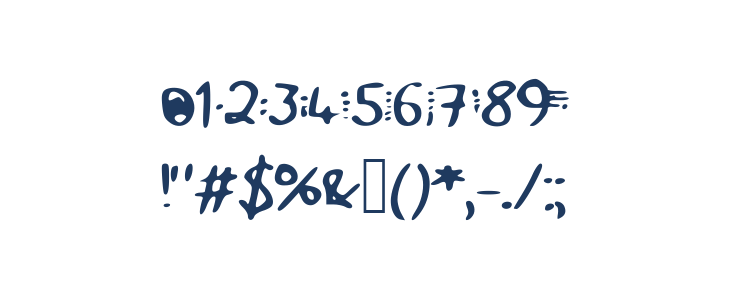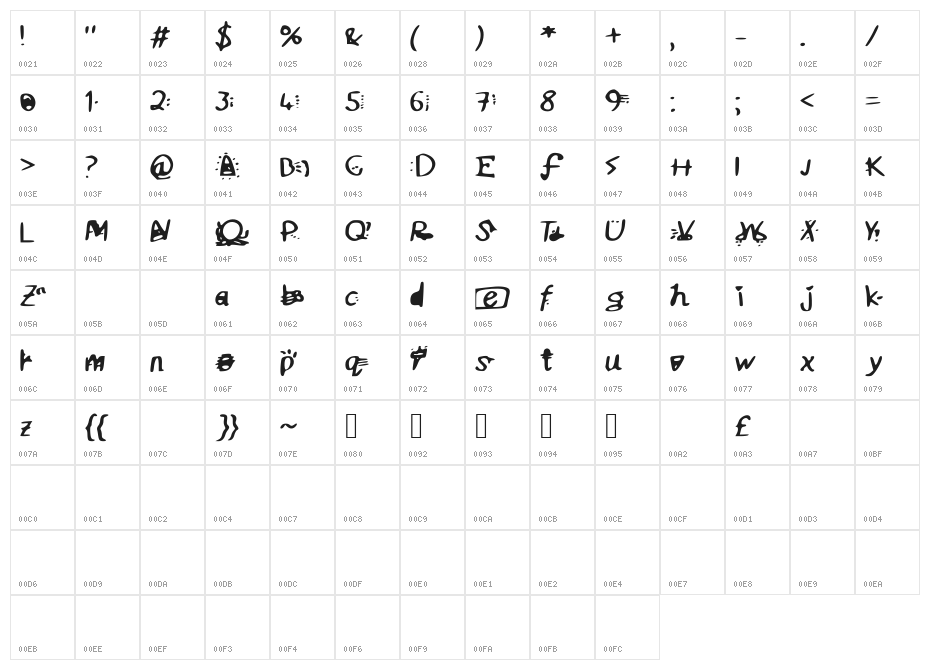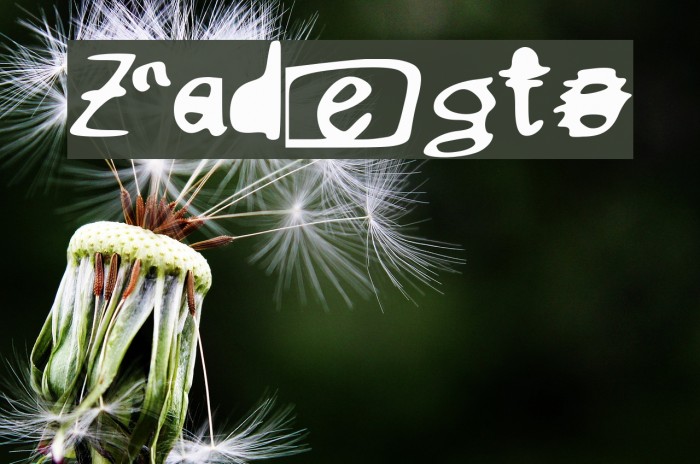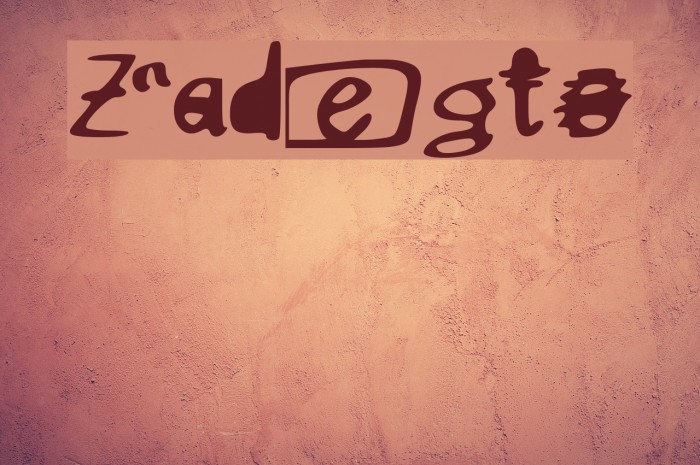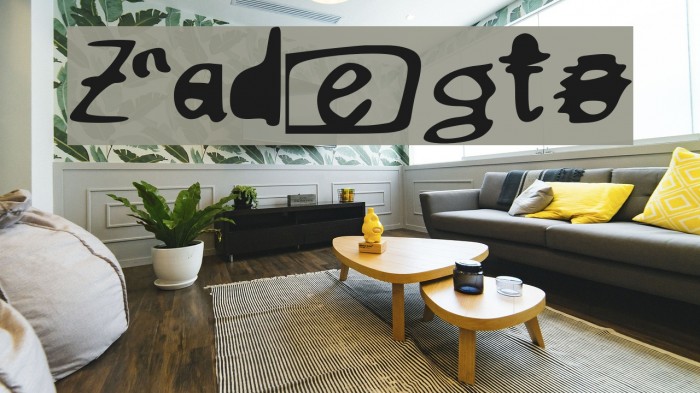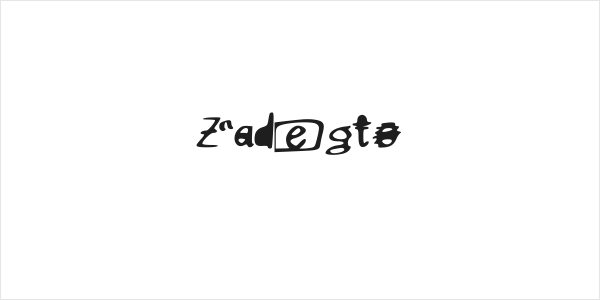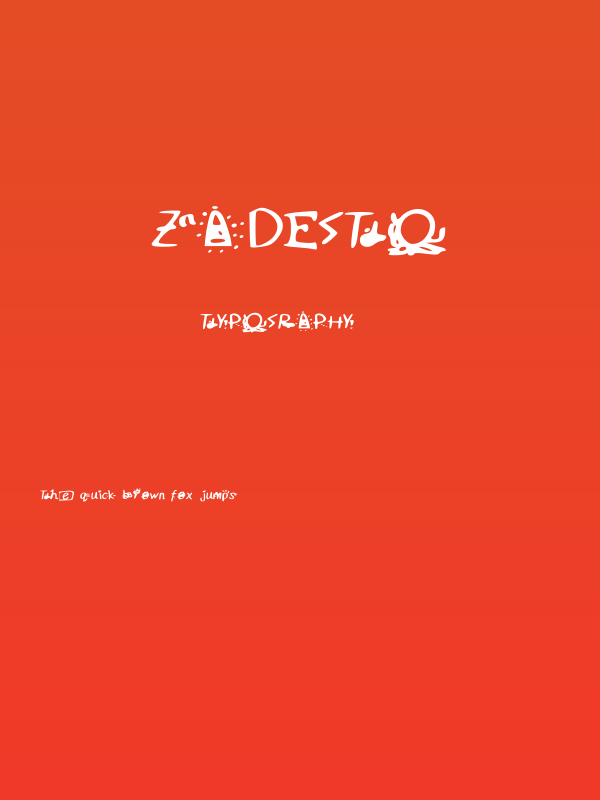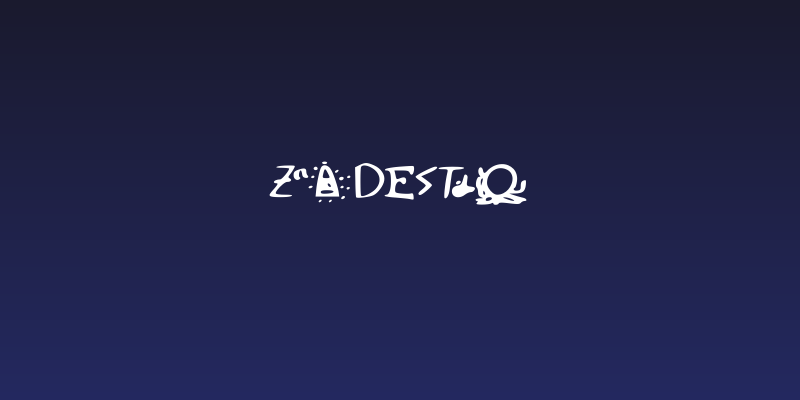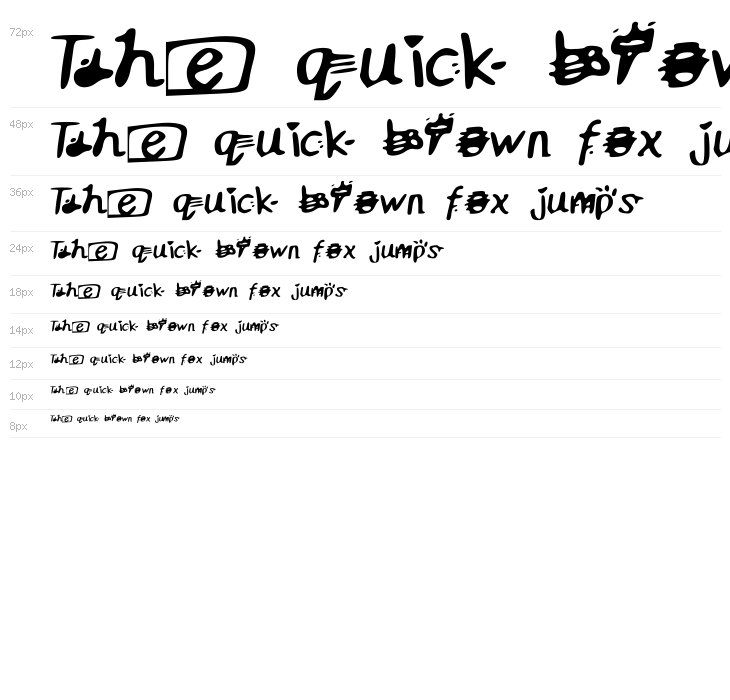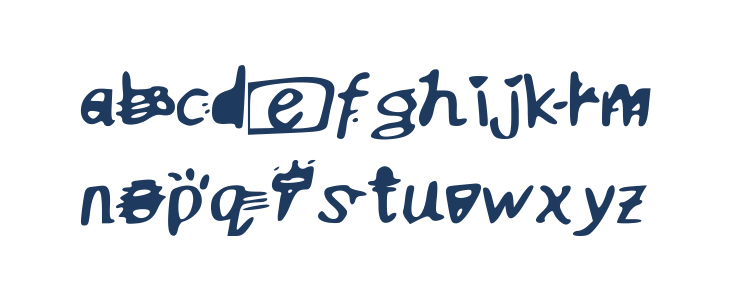
Zadegto Font
Zadegto Description
This font features a highly decorative and playful style, characterized by its whimsical and irregular shapes. Each letter is uniquely designed with a variety of embellishments, such as dots, lines, and curves, giving it a hand-drawn appearance. The uppercase letters are bold and expressive, while the lowercase letters maintain a consistent yet quirky style. Numbers and special characters follow the same playful theme, making the font suitable for creative and informal projects. The overall design is dynamic and eye-catching, perfect for capturing attention.
| Proposed Projects | Ideal for children's books, playful branding, creative posters, and artistic invitations. |